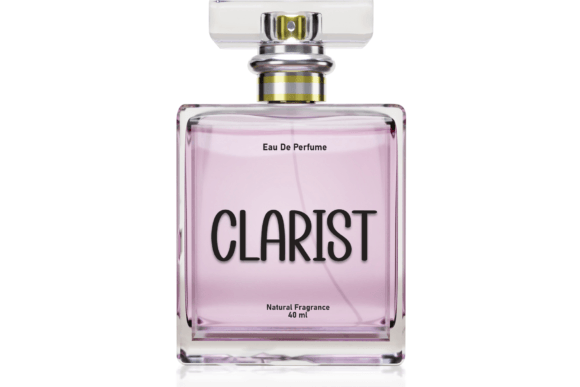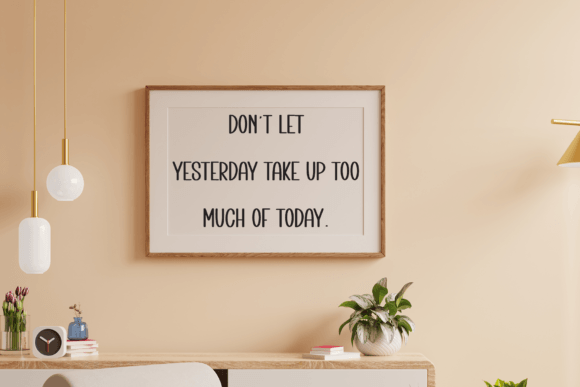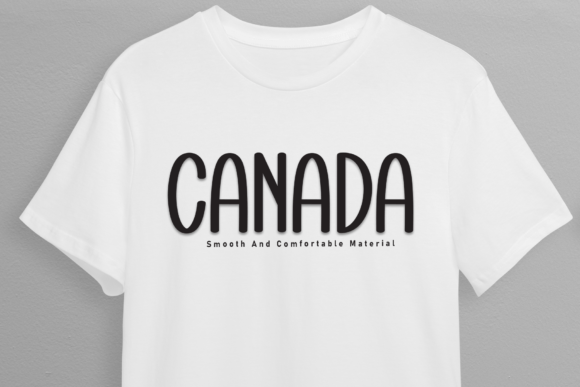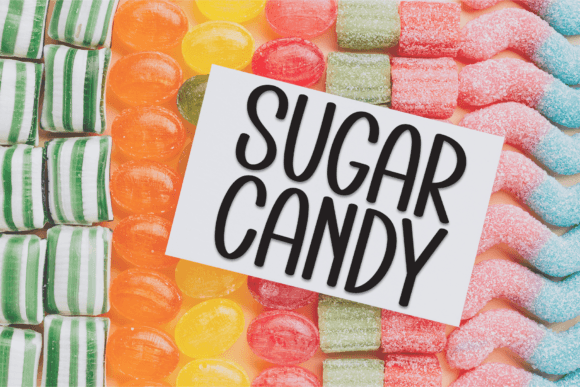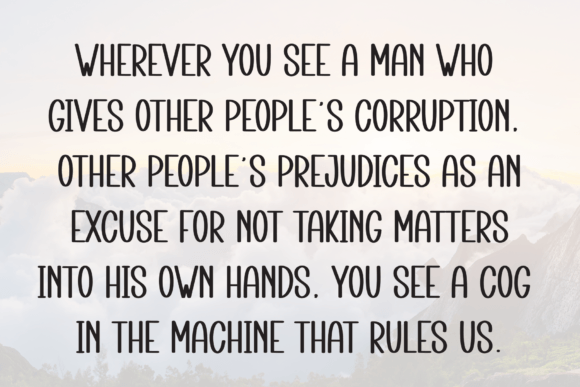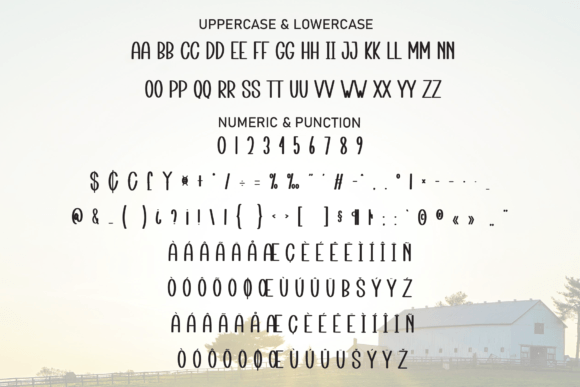
Introducing Farmhouse Font: The Perfect Blend of Simplicity and Approachability
In the world of typography, fonts play a crucial role in shaping the visual identity of a brand, product, or service. With numerous font styles to choose from, designers and crafters are often on the lookout for a font that strikes the right balance between simplicity, readability, and modern appeal. This is where Farmhouse Font comes into play – a casual sans-serif font that has been gaining popularity for its clean, approachable, and friendly look.
Farmhouse Font is a sans-serif font designed to offer a clean and relaxed aesthetic, perfect for everyday design projects. Its simple, rounded letterforms create a friendly and approachable feel, making it an ideal choice for websites, apps, branding, and various other design applications. The font’s versatility ensures that it can be used across different platforms, from digital media to print materials.
- Clean and Simple Design: Farmhouse Font boasts a minimalist design with clean lines and simple shapes, making it easy to read and understand.
- Rounded Letterforms: The font features rounded letterforms that create a friendly and relaxed feel, perfect for designs that require a personal touch.
- Versatility: Farmhouse Font is highly versatile and can be used across different design projects, from websites and apps to branding and marketing materials.
- Readability: The font’s clear and concise design ensures excellent readability, making it suitable for body text, headings, and titles.
- Modern Appeal: Farmhouse Font has a modern appeal that makes it perfect for contemporary designs, while its simplicity ensures it won’t go out of style anytime soon.
Who Can Benefit from Farmhouse Font?
Farmhouse Font is an excellent choice for a wide range of designers and crafters, including:
- Web Designers: The font’s clean design and excellent readability make it perfect for websites, blogs, and landing pages.
- App Developers: Farmhouse Font’s simplicity and modern appeal make it an excellent choice for mobile and web applications.
- Branding Experts: The font’s friendly and approachable feel makes it ideal for branding, packaging, and marketing materials.
- Crafters and Makers: Farmhouse Font’s rustic charm and simplicity make it perfect for craft-related projects, such as labels, signs, and product packaging.
How to Use Farmhouse Font Effectively
To get the most out of Farmhouse Font, consider the following tips:
- Pair it with Other Fonts: Combine Farmhouse Font with other fonts to create visual interest and add depth to your designs.
- Use it for Body Text: Farmhouse Font’s excellent readability makes it perfect for body text, ensuring your content is easy to read and understand.
- Experiment with Font Sizes: Play with different font sizes to create visual hierarchy and emphasize important information.
- Add a Personal Touch: Use Farmhouse Font to add a personal touch to your designs, making them more approachable and friendly.
Farmhouse Font is a versatile and approachable font that offers a perfect blend of simplicity, readability, and modern appeal. Its clean design, rounded letterforms, and friendly feel make it an excellent choice for designers and crafters looking to create visually appealing designs. Whether you’re working on a website, app, branding project, or craft-related design, Farmhouse Font is sure to become a valuable addition to your typography toolkit.